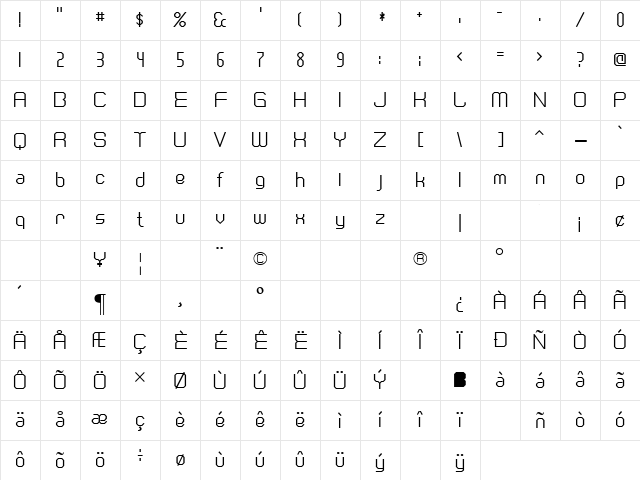
Complete Cranberry Gin Regular glyph index. Displaying only characters natively supported by Cranberry Gin Regular font.
Cranberry Gin is a composed and adaptable typeface that performs quietly and consistently across a wide range of design contexts.